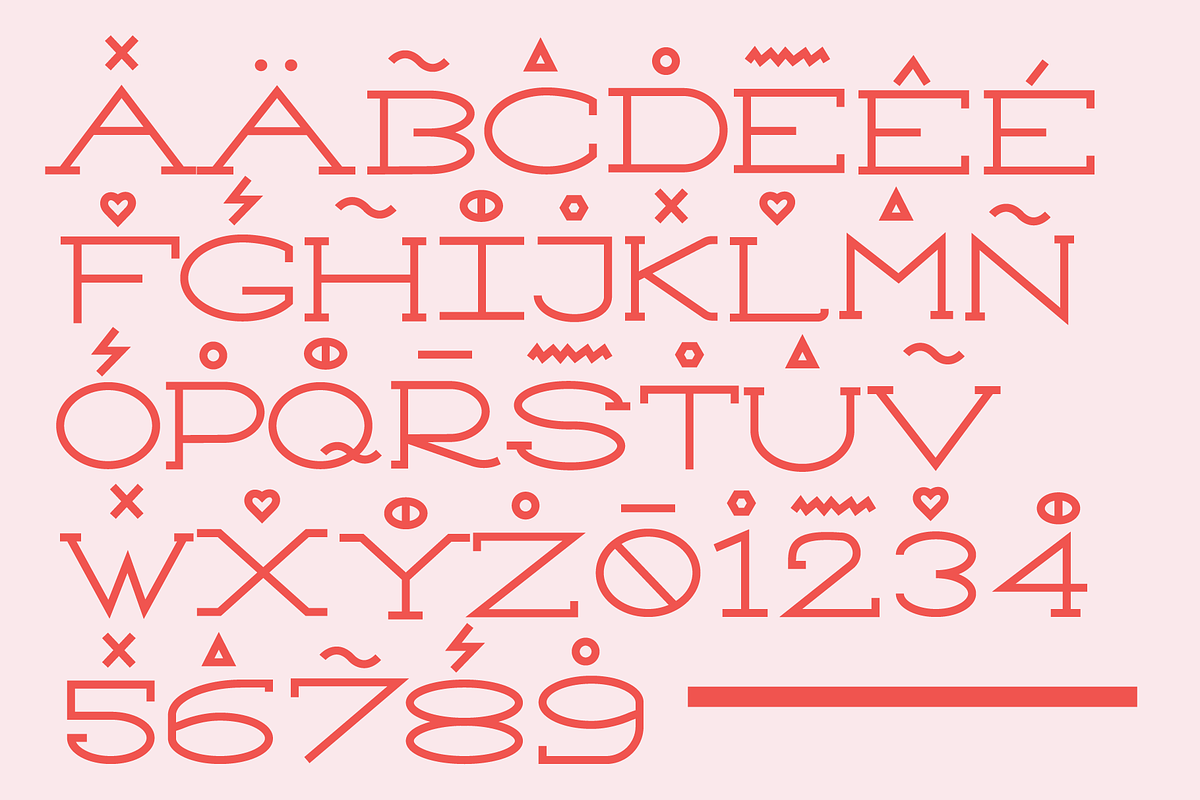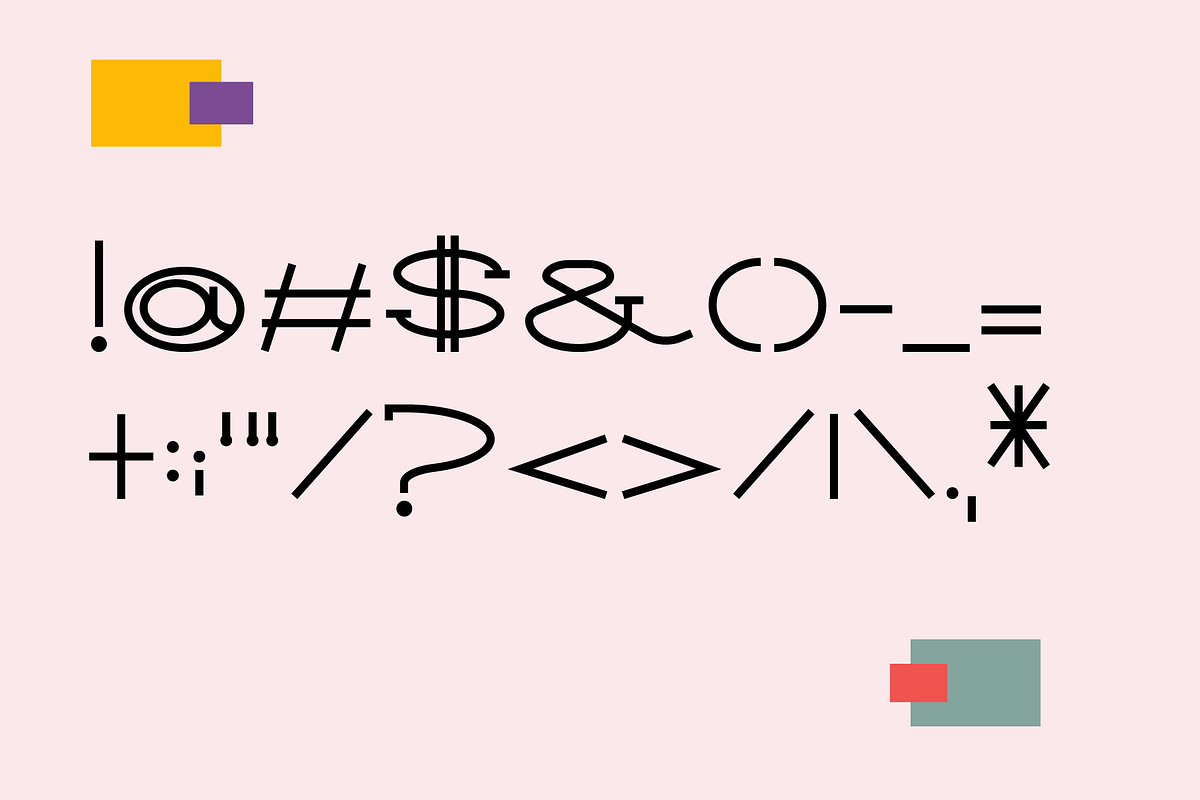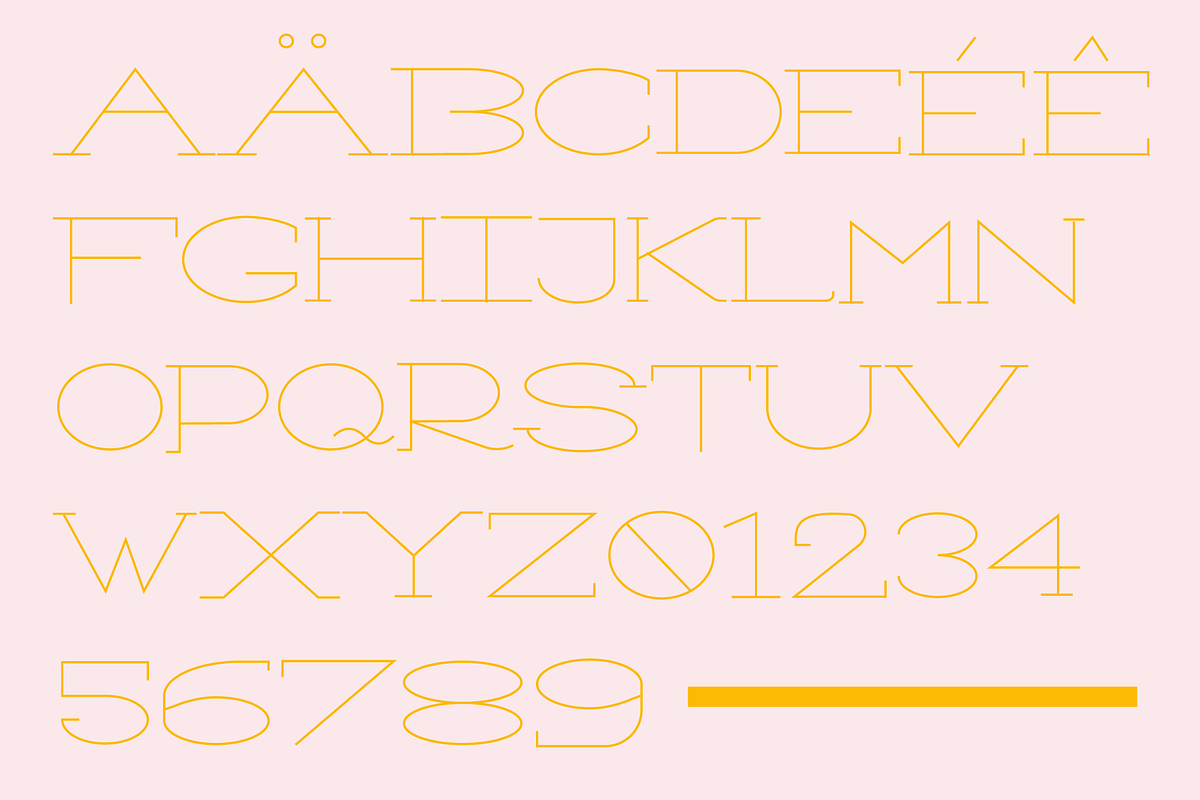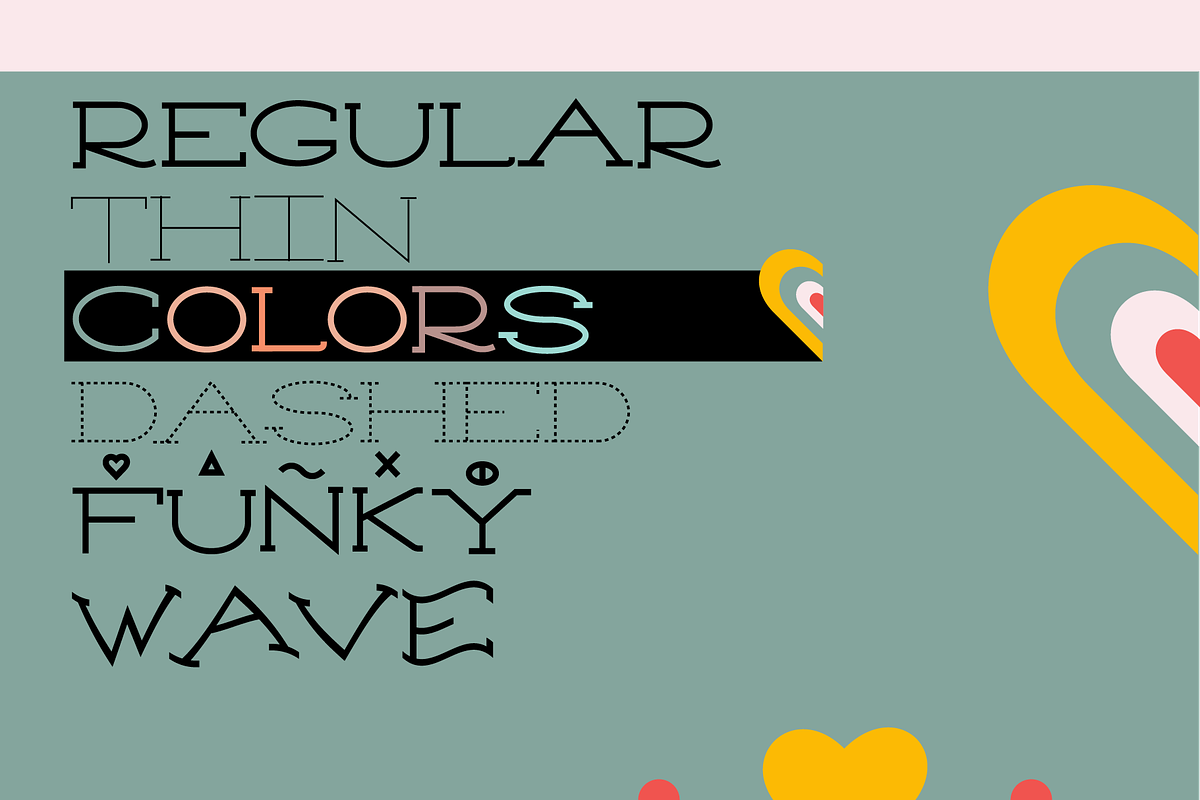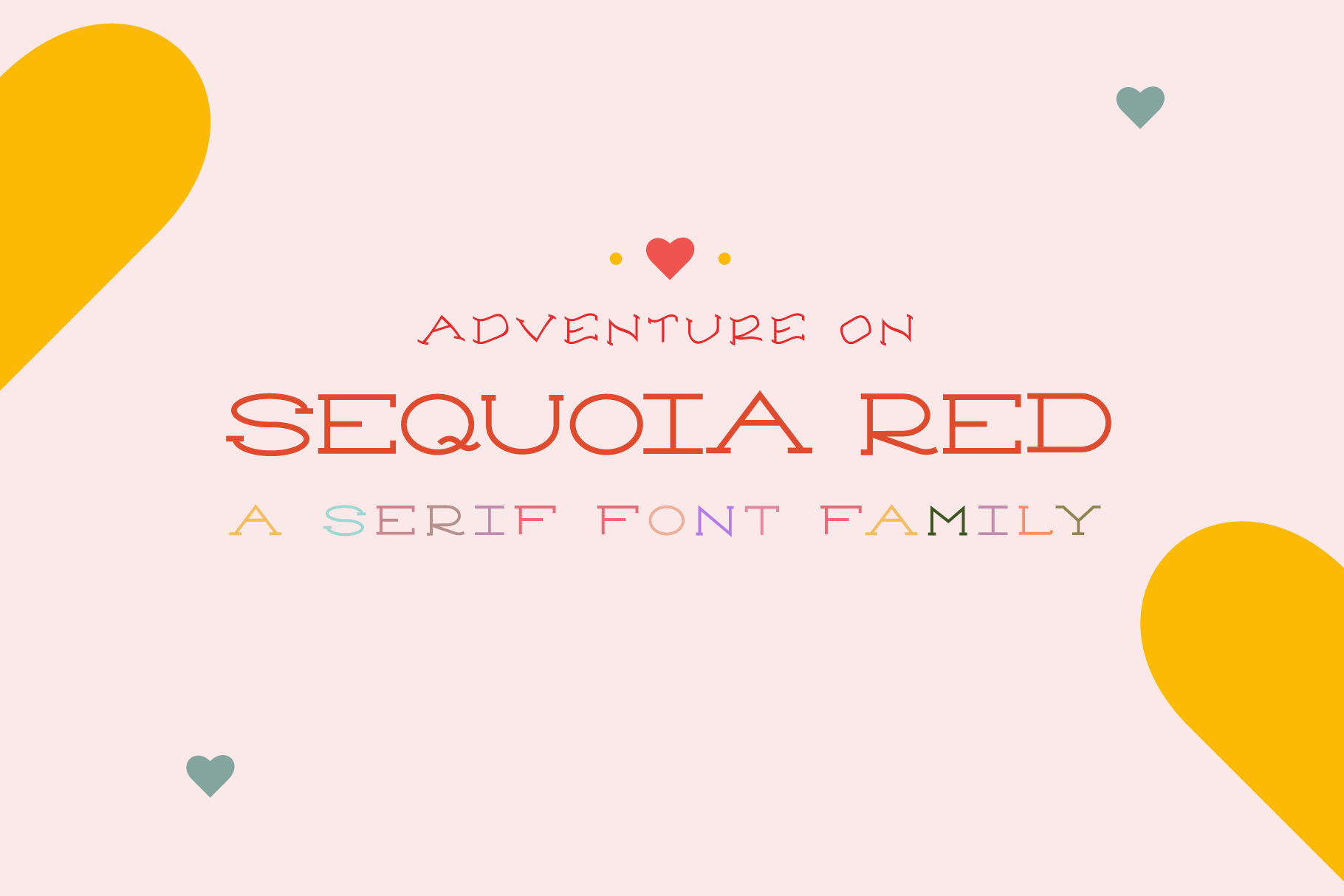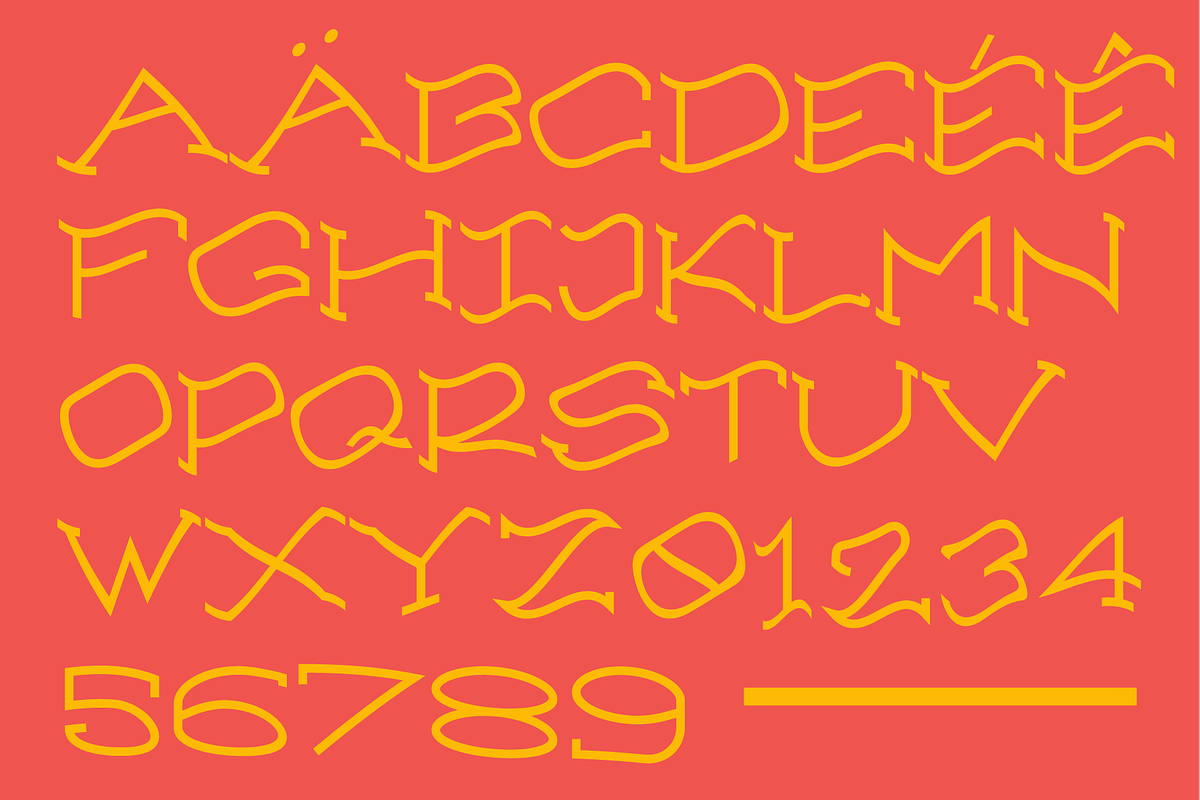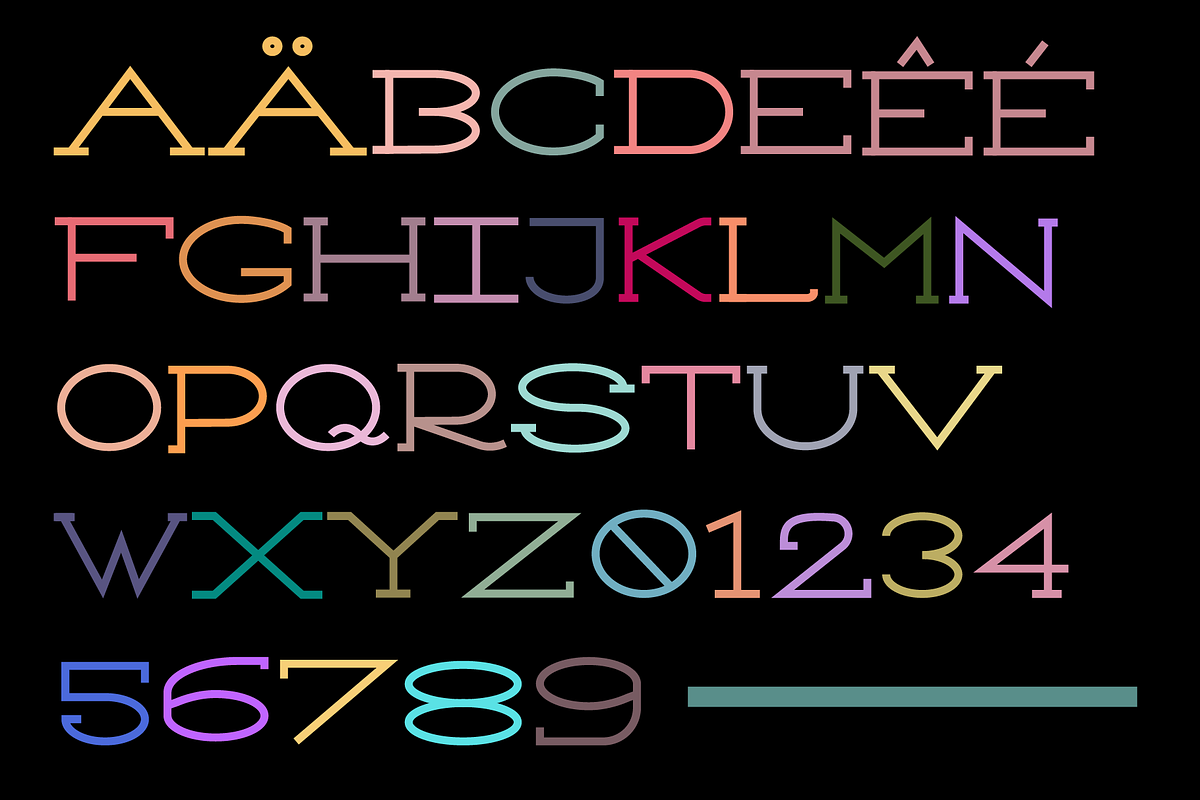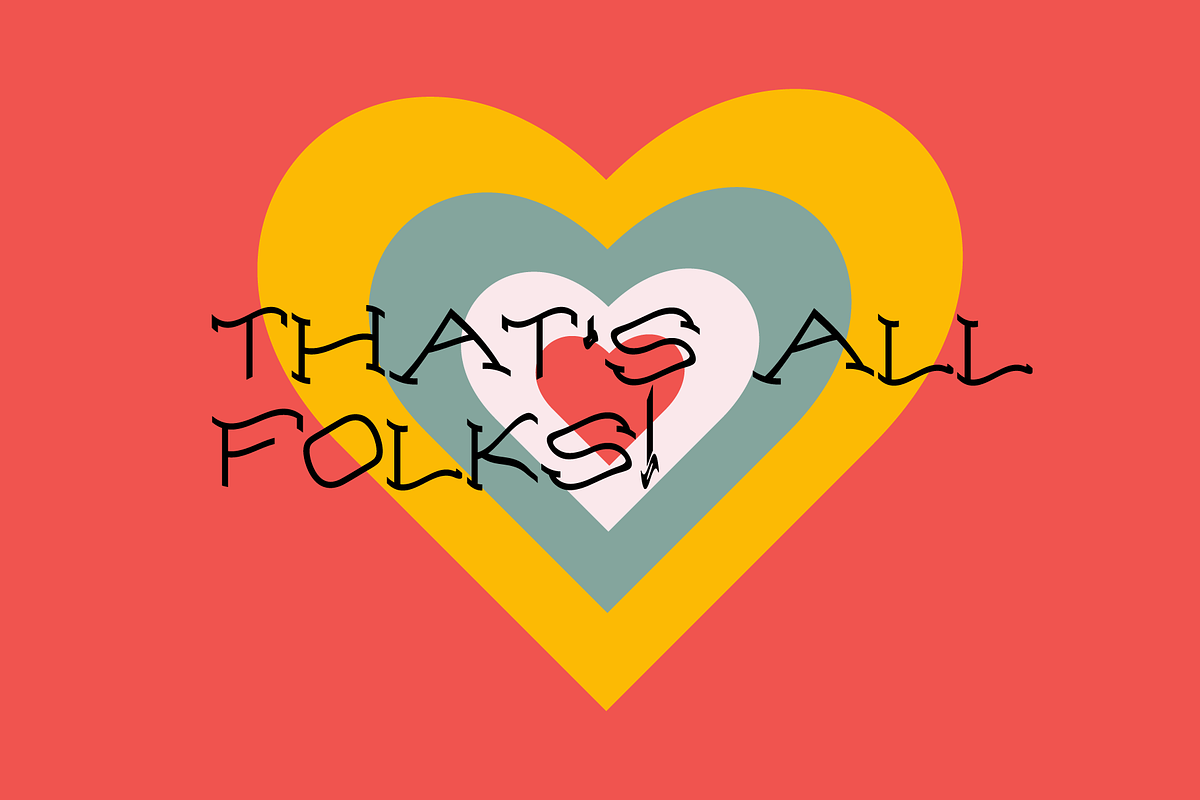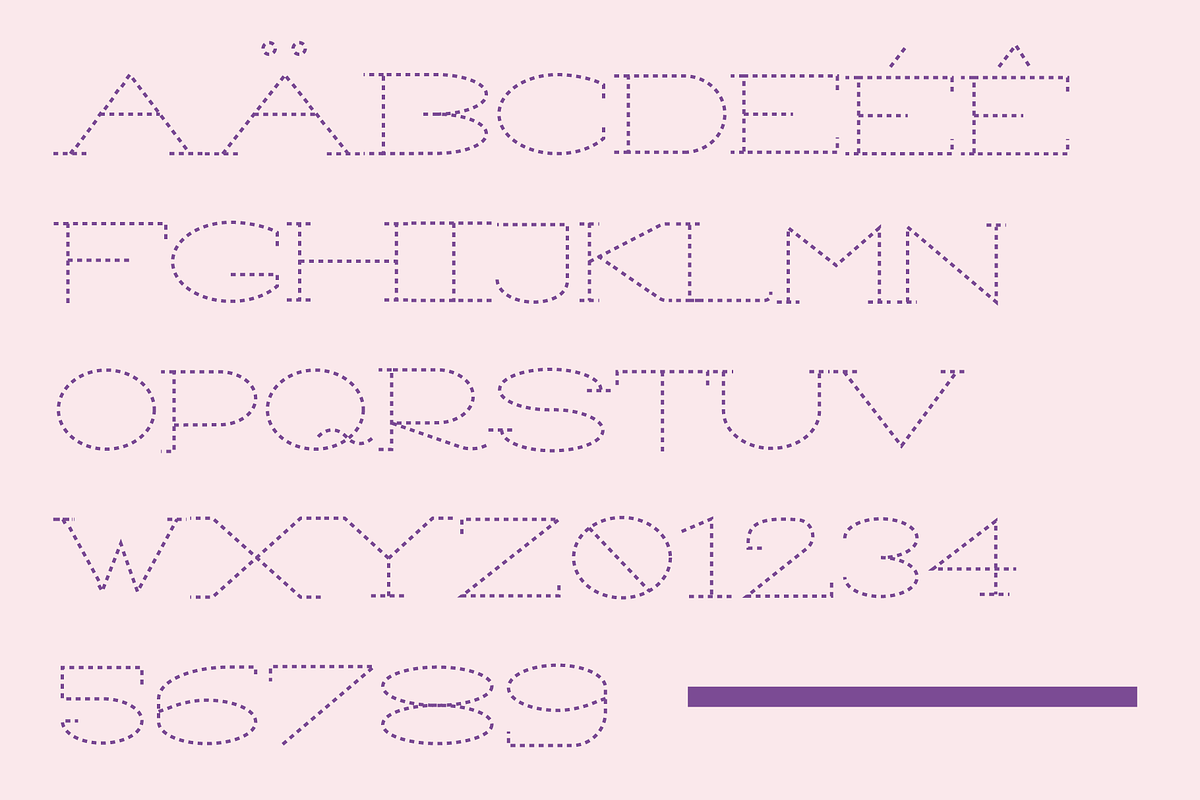
SEQUOIA RED - Font Family
S E Q U O I A - R E D - A MODERN SERIF FONT FAMILY
Font family comes with 6 styles -
- REGULAR
- THIN
- COLORED (please read note below)
- DASHED
- FUNKY
- WAVE 🌊